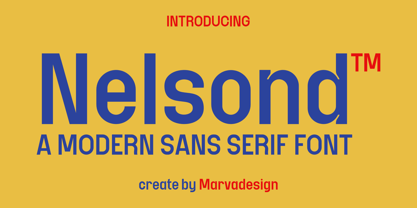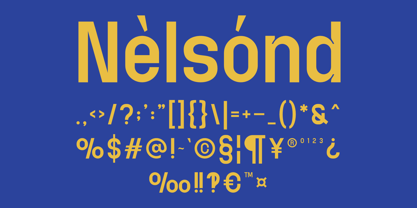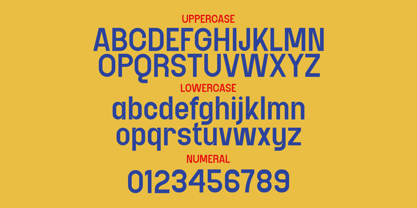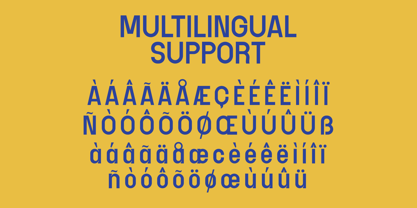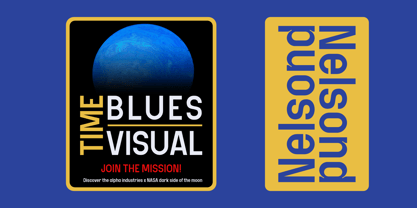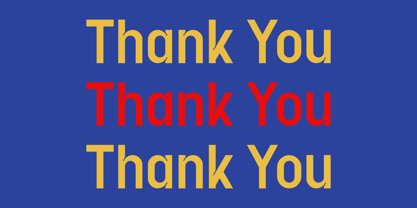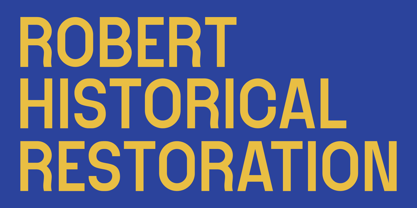
Nelsond
by Marvadesign
The Nelsond Font Family was designed by Febrie Setiawan and published by Marvadesign. Nelsond contains 1 styles. More about this family
Introducing Nelsond is a modern sans-serif typeface that embodies a clean, bold, and highly legible design. It features a geometric structure with even stroke widths, making it suitable for a variety of design applications, including branding, advertising, posters, and digital content. The font's versatility allows it to be used in both professional and creative projects, maintaining a contemporary and stylish aesthetic. Its strong visual impact ensures readability, making it ideal for headlines and attention-grabbing typography.
Designers: Febrie Setiawan
Foundry: Marvadesign